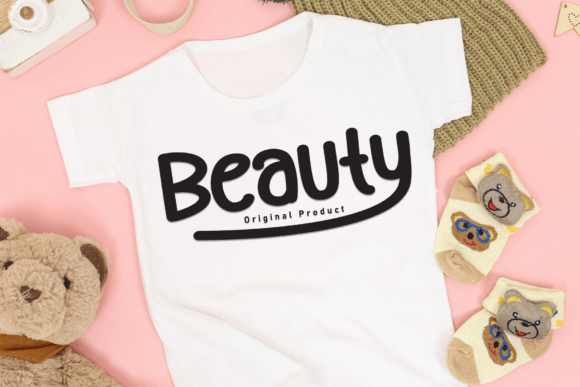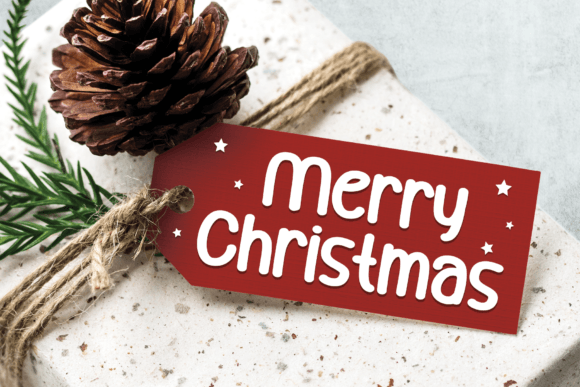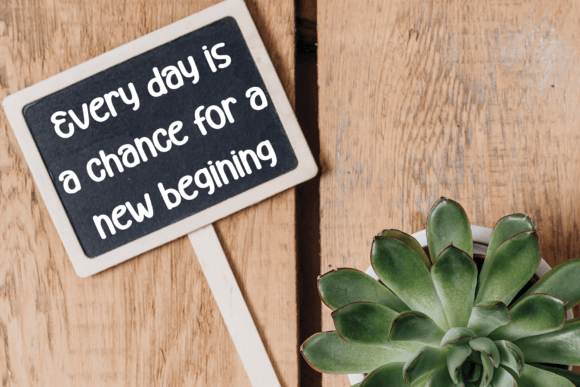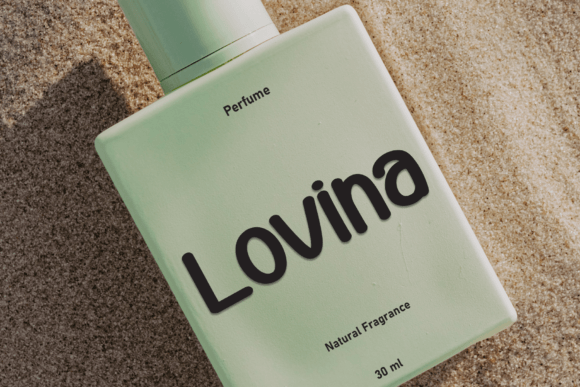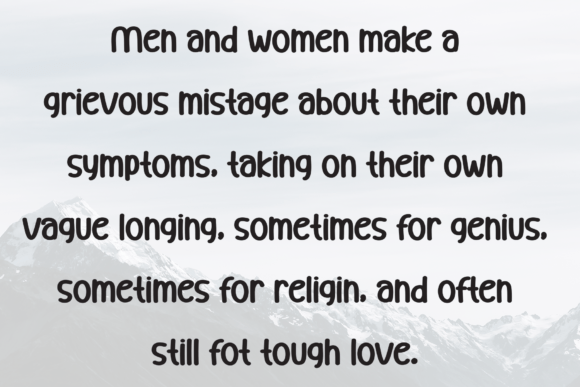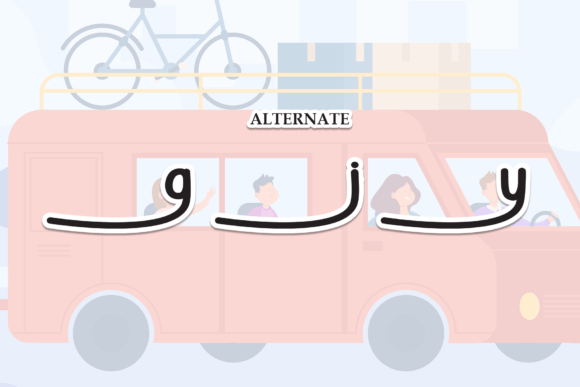
The Perfect Font for a Personal Touch: A Deep Dive into During Font
I’ll never forget the time I was working on a wedding invitation project, and my client asked for a font that was “fun, yet elegant.” I scoured the internet, trying out font after font, but nothing seemed quite right. That was until I stumbled upon During Font. This sweet and friendly handwritten display font has been a game-changer for my designs, and I’m excited to share its charm with you.
An Honest Review of During Font
So, what makes During Font so special? Let’s dive into the good stuff and a few quirks I’ve discovered.
- ✨ Cute and Fun: During Font is perfect for adding a playful touch to any design, from wedding invitations to greeting cards.
- ✅ Elegant yet Approachable: This font strikes the perfect balance between sophistication and friendliness, making it ideal for a wide range of projects.
- 💕 Handwritten Charm: The imperfections and quirks of a handwritten font give During Font a unique, personal feel that’s hard to replicate with more formal fonts.
While During Font is an excellent choice for many projects, there are a few things to keep in mind:
- ⚠️ Legibility at Small Sizes: Like many script fonts, During Font can become a bit tricky to read at very small sizes. It’s best used at larger sizes, such as headlines or titles.
- 🤔 Limited Use in Body Text: While it’s tempting to use During Font for body text, it’s really best suited for short bursts of text, like headings or captions.
The Story Behind During Font
While the origins of During Font are shrouded in mystery, it’s clear that its creator was aiming to craft a font that felt warm, welcoming, and fun. Whether or not the font’s designer was inspired by handwritten notes, love letters, or whimsical doodles, the end result is a font that feels truly personal.
Q: What makes During Font unique?
A: During Font’s unique blend of elegance and playfulness sets it apart from other fonts. Its handwritten charm and friendly feel make it perfect for designs that need a personal touch.
Q: Is During Font difficult to read?
A: Like many script fonts, During Font can be challenging to read at very small sizes. For best results, use it at larger sizes or for short bursts of text.